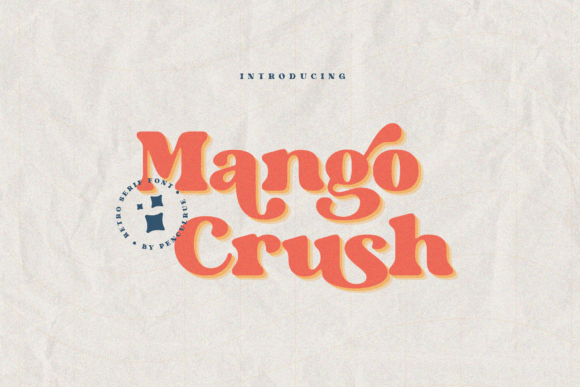
Introducing Mango Crush Font - the ultimate choice for digital branding enthusiasts! Created by Pen Culture, this retro serif font is the epitome of smooth curves and groovy sweetness. Whether you're looking to create a unique logo, branding, invitation or embroidery project, Mango Crush is the perfect tool for bringing your creative vision to life.
With its stunning, eye-catching style and unparalleled versatility, Mango Crush is quickly becoming the go-to font for anyone looking to elevate their digital presence. Its smooth curves and elegant lines make it the ideal choice for any project where you want to make a bold statement and stand out from the crowd.
But what really sets Mango Crush apart is its unique blend of retro charm and modern sophistication. This font is the perfect combination of classic and contemporary, making it the perfect choice for anyone who wants to add a touch of timeless elegance to their digital designs.
So why choose Mango Crush? First and foremost, this font is the ultimate expression of creativity and individuality. It allows you to express yourself in ways that other fonts simply can't match. Whether you're looking to create a logo that truly stands out, or you want to add a touch of elegance to your branding, Mango Crush is the perfect tool for the job.
In addition, Mango Crush is incredibly versatile, making it perfect for a wide range of projects. Whether you're designing a website, creating a marketing campaign, or simply looking to add some flair to your social media posts, this font has you covered.
Finally, with its smooth curves and stunning design, Mango Crush is simply a joy to work with. It's easy to use and intuitive, allowing you to create stunning designs in a matter of minutes.
So if you're looking for the best font for digital branding, look no further than Mango Crush. With its unique blend of retro charm and modern sophistication, this font is the ultimate choice for anyone who wants to stand out and make a bold statement in the digital world.